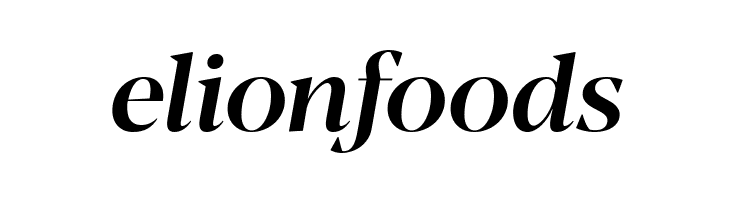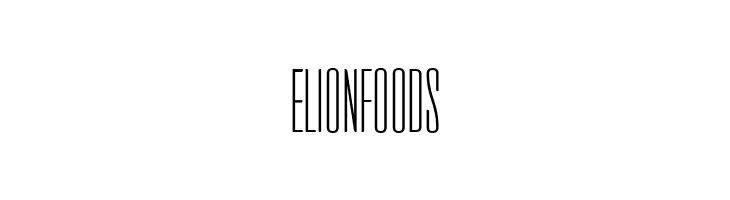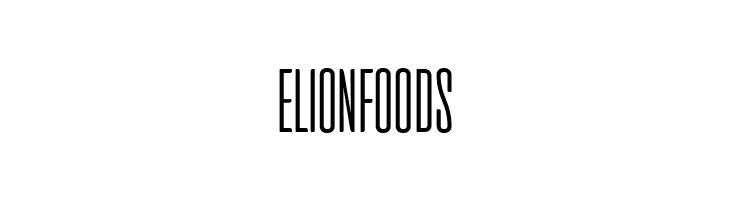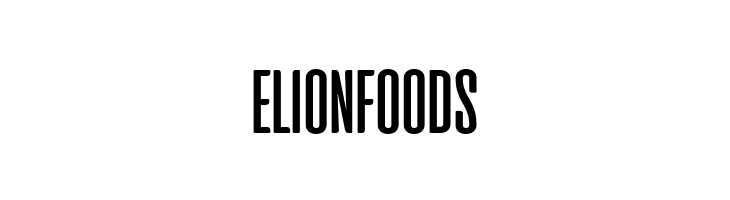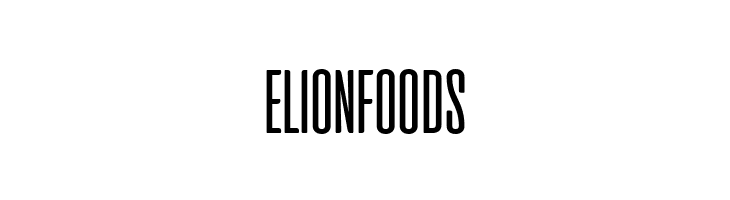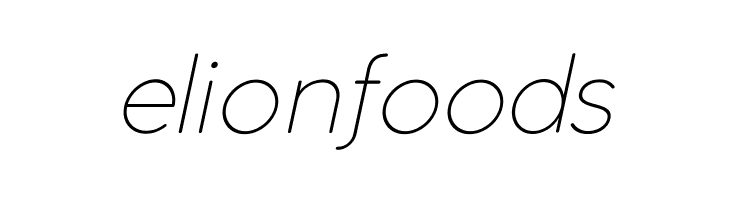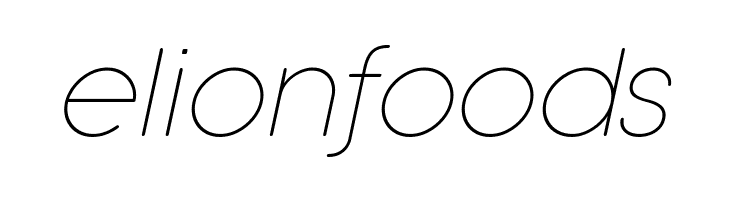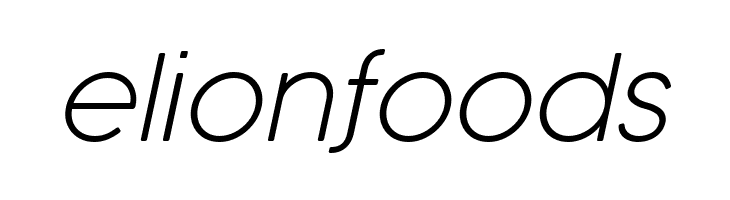
A bold, high-contrast serif font with sharp serifs and a commanding presence.
An elegant, italicized font with medium weight and sharp strokes.
A refined, light, and italic serif font with high contrast and elegant serifs.
A thin, elongated font with high contrast and a modern, sophisticated style.
A tall, narrow, and elegant font with an extra light weight, perfect for modern designs.
A tall, narrow font with a modern yet vintage style, perfect for impactful headlines.
A tall, condensed font with a modern and sleek design.
A sleek, ultra-light italic font with a modern and fluid design.
A modern, thin, italicized font with a sleek and elegant design.
A sleek, ultra-light italic font with a modern and elegant style.